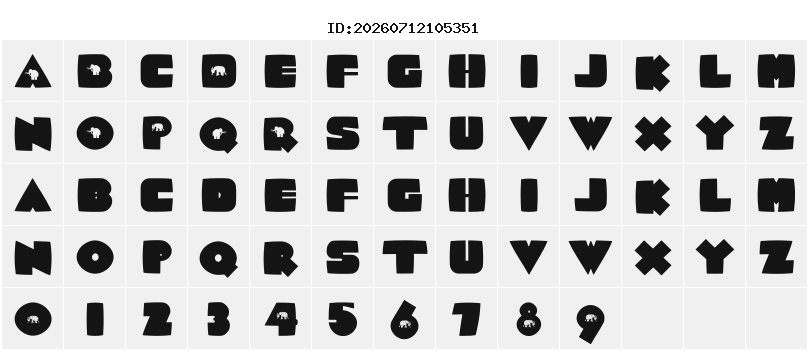
MammothishCaps Preview
• Font Name: MammothishCaps
• Font ID: MammothishCaps
• Full Font Name: MammothishCaps
• Version: 1.0 20-05-2002
• PostScript Name: MammothishCaps
• Character Count: 171
About MammothishCaps.ttf
MammothishCaps.ttf is a modern, elegant sans-serif font designed for ultimate readability and visual harmony. Perfect for branding, headlines, web design, and print materials.